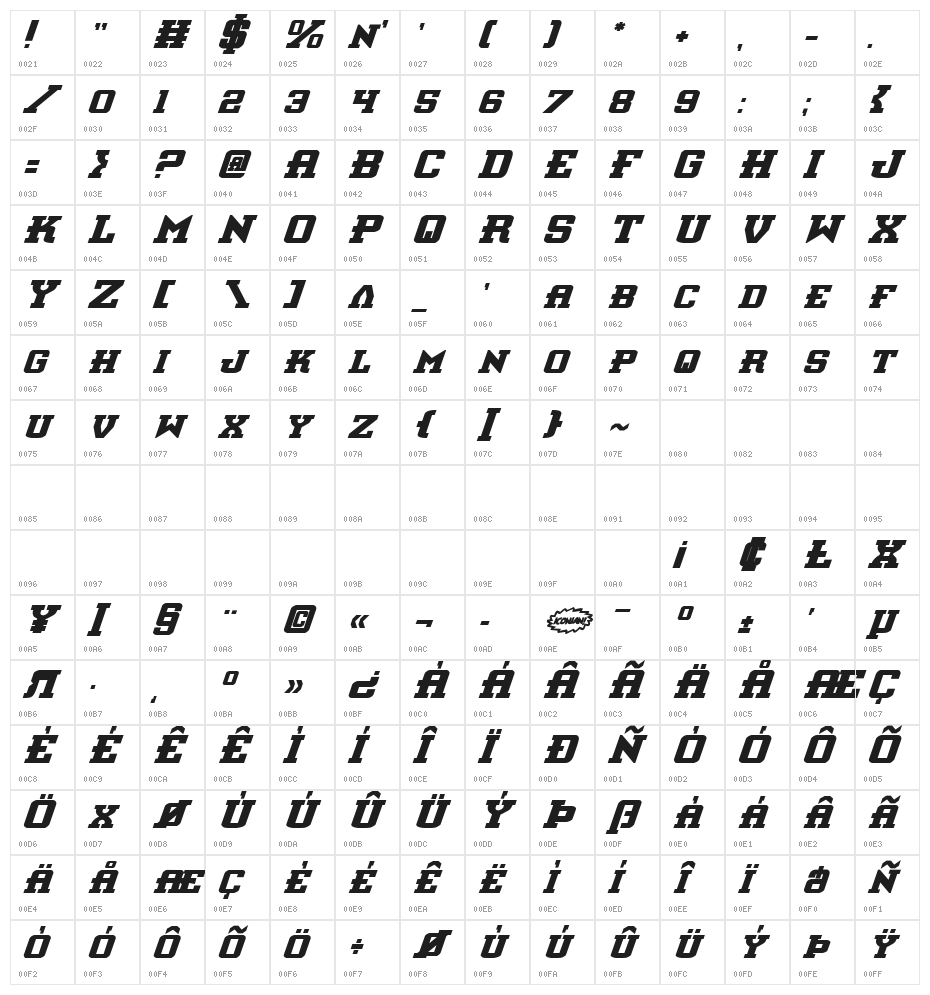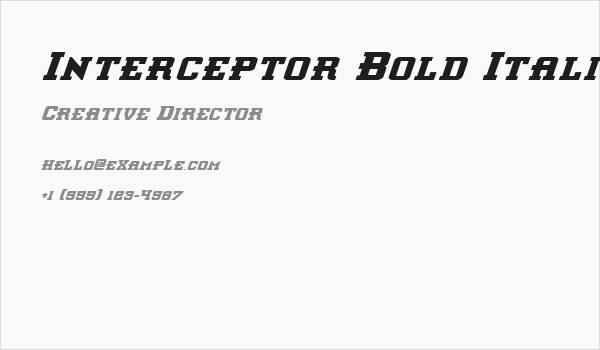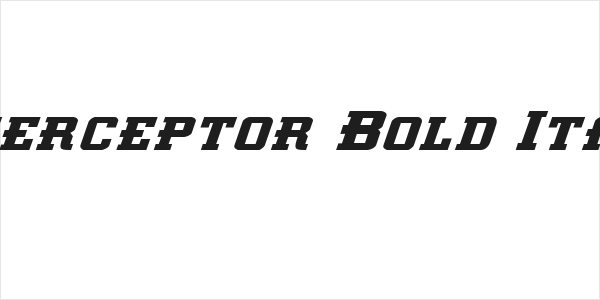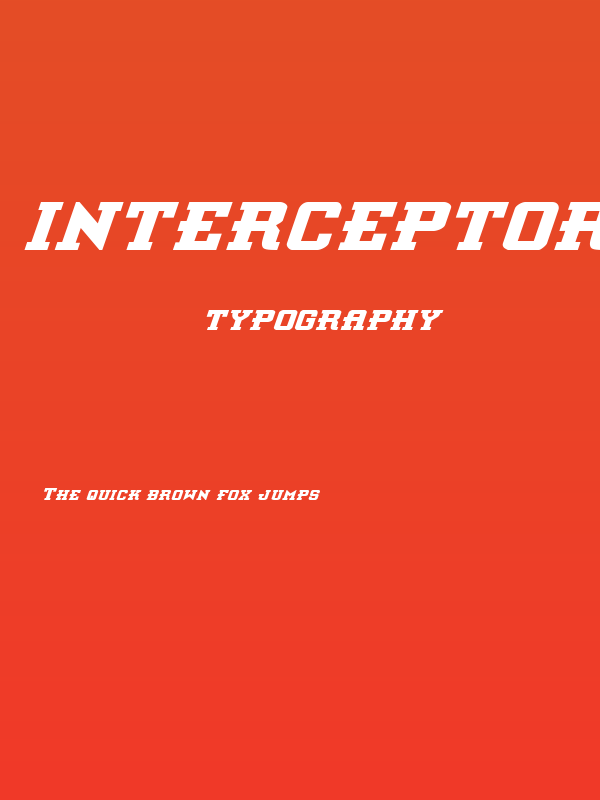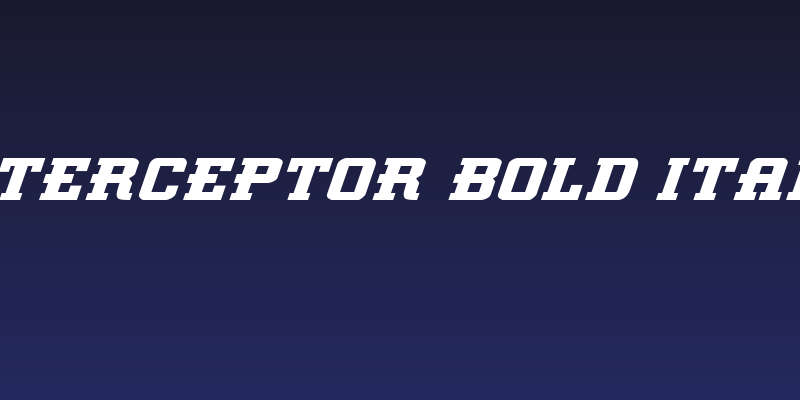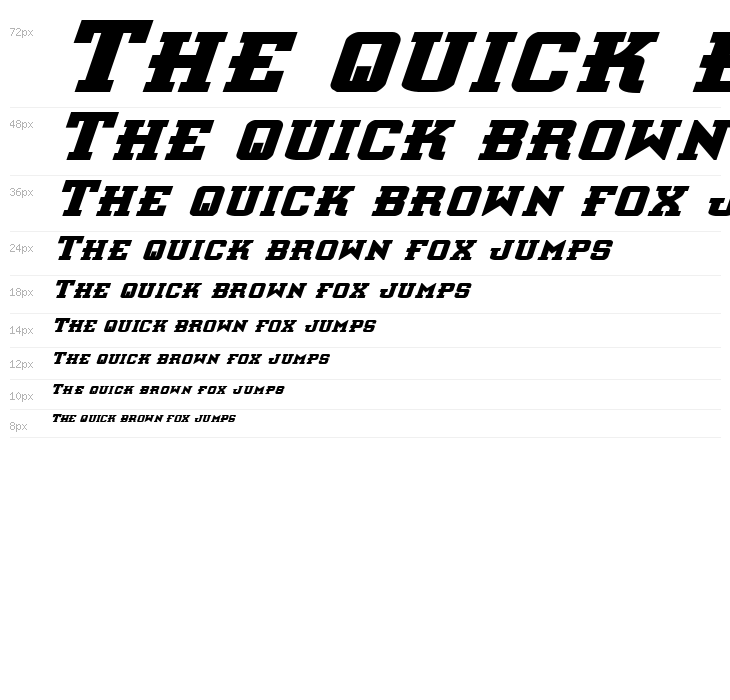
Interceptor Bold Italic Font
Interceptor Bold Italic Description
This font exhibits a bold and italicized style with a strong, dynamic presence. The characters are designed with sharp angles and a slight slant, giving them a sense of motion and energy. The bold weight ensures that each letter stands out, making it ideal for attention-grabbing headlines or impactful designs. The italic nature adds a touch of elegance and fluidity, balancing the boldness with a sleek, modern twist. The font maintains consistent stroke thickness, contributing to a cohesive and uniform appearance across all characters. It is well-suited for projects that require a bold statement, such as sports branding, automotive designs, or dynamic advertising campaigns.
| Proposed Projects | Ideal for sports branding, automotive designs, dynamic advertising, and impactful headlines. |